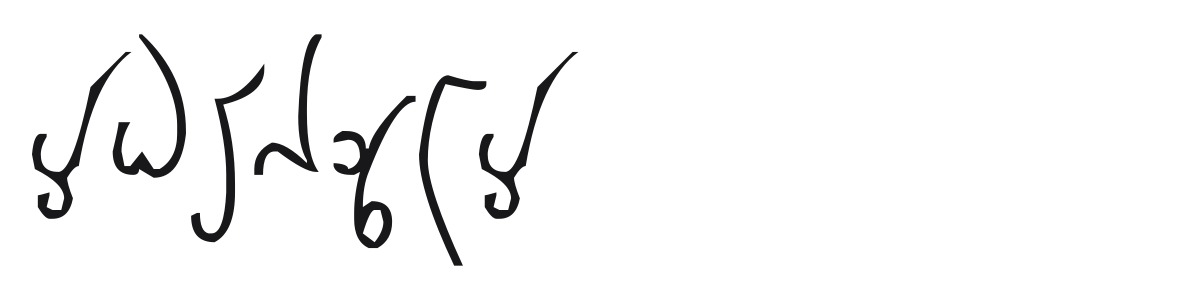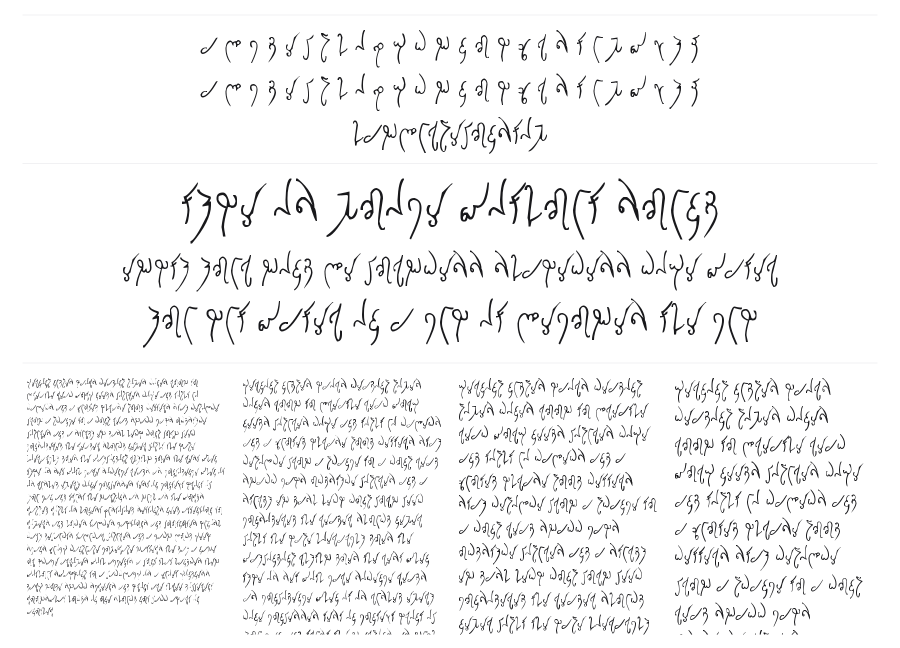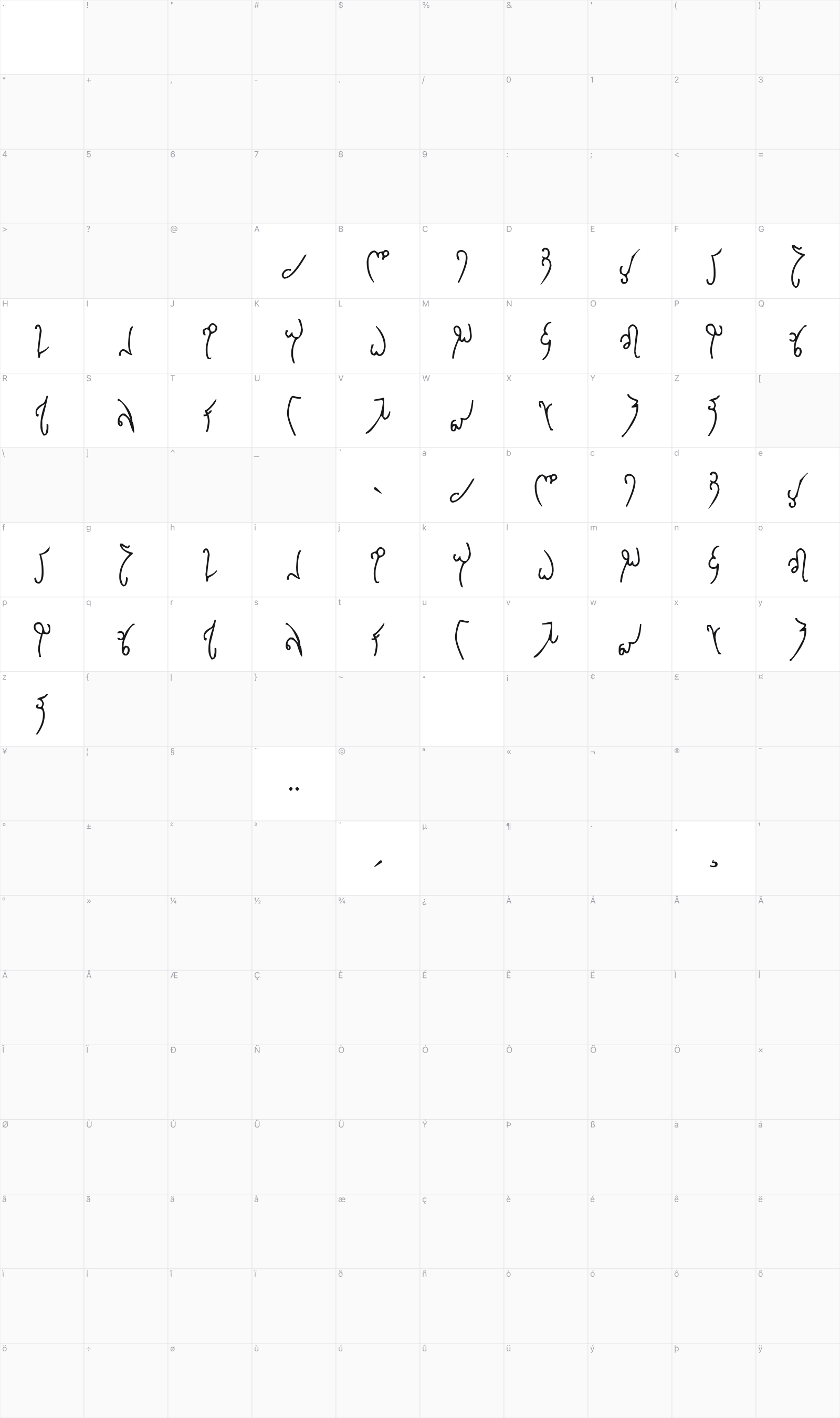
Elfique
Elfique is a fantasy script font that mimics the look of an invented elvish or magical writing system. Characters flow with thin, cursive strokes that feel hand-penned, with unconventional letterforms that read as deliberately alien yet organic. It suits fantasy branding, game titles, and any project that needs a sense of ancient, otherworldly mystery.